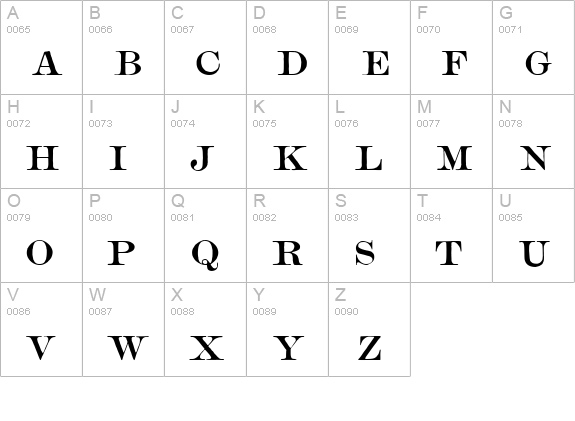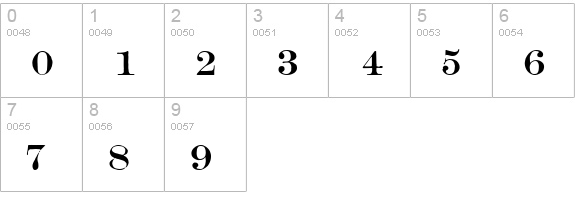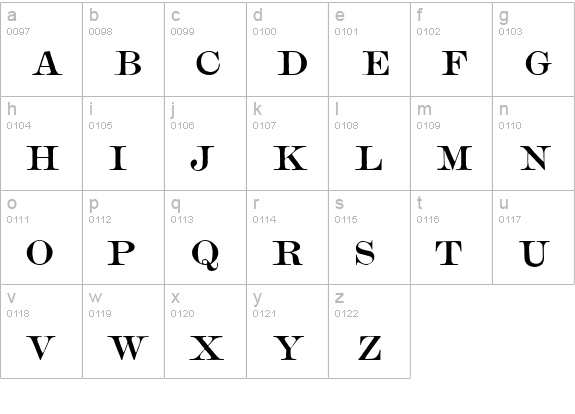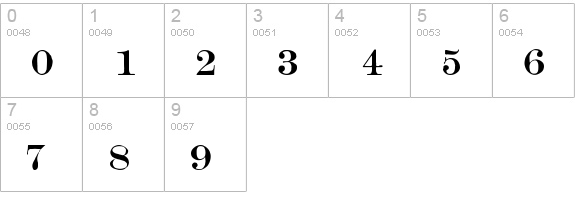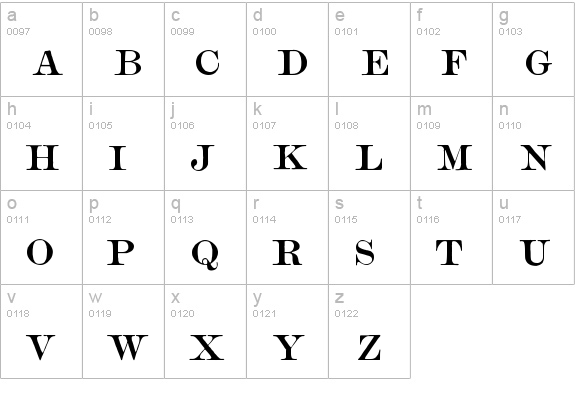
Mercantile Regular HPLHS Font Details
Mercantile Regular HPLHS is the standard, neutral variant in the Mercantile typeface family \xE2\x80\x94 well suited to general body text, paragraphs, and standard typographic work.
Mercantile Regular HPLHS font is a classic and elegant typeface that exudes sophistication and charm. With its clean lines and timeless design, this font is perfect for a wide range of projects, from branding to editorial work. The versatile nature of Mercantile Regular HPLHS makes it a great choice for both digital and print applications. What sets Mercantile Regular HPLHS font apart is that it is available for free download at FontsMarket.com. This means that you can access this high-quality font without any cost, making it a valuable addition to your font library. Whether you're a designer looking to elevate your projects or a business owner in need of a stylish font for branding materials, Mercantile Regular HPLHS is sure to impress. Download it today and enhance your creative endeavors with this exceptional typeface.